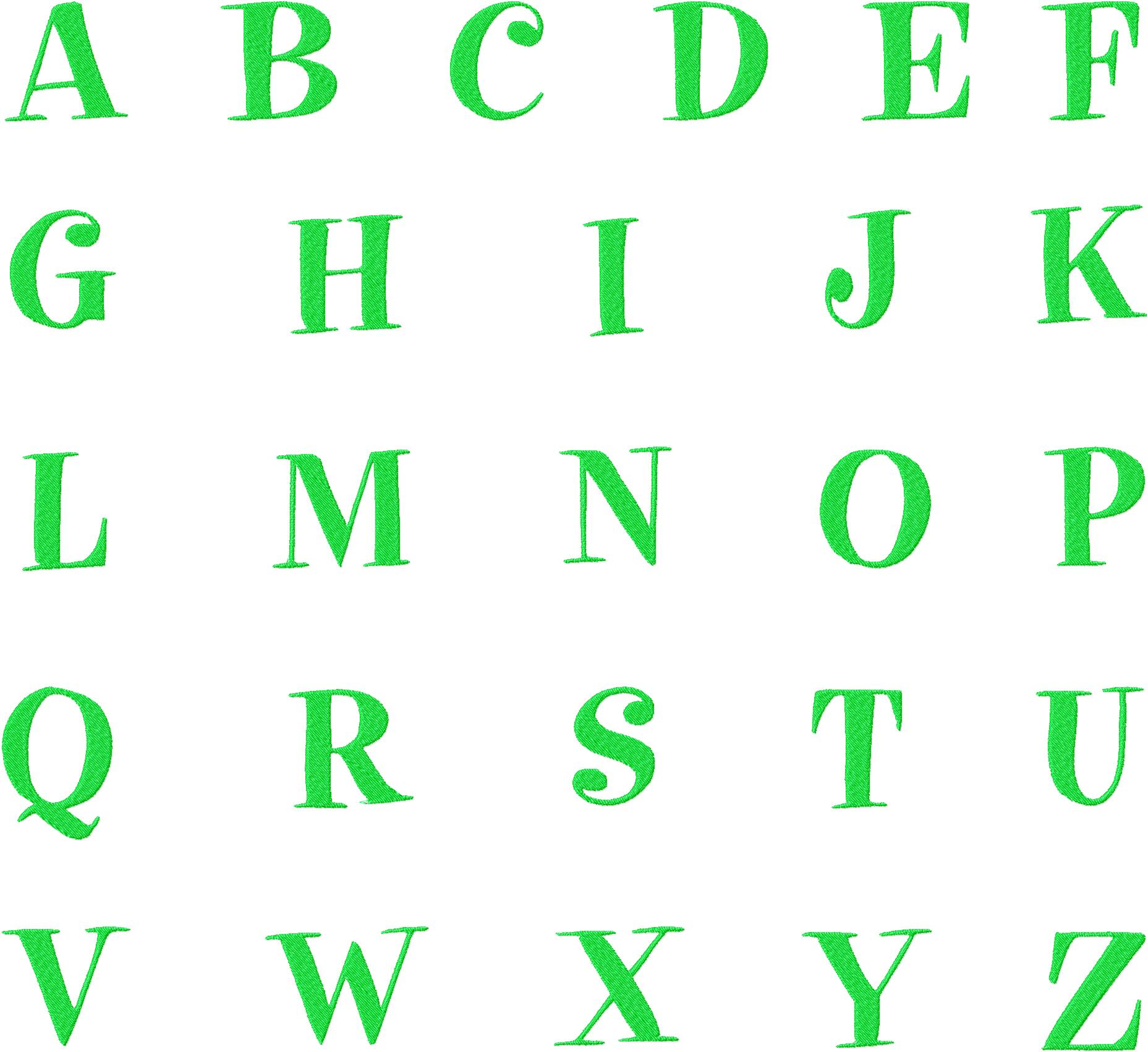
This simple yet exquisite font is the perfect finishing touch to personalize all your sewing projects. Download the Pixie Font Machine Embroidery Font Set for Gold Members only.